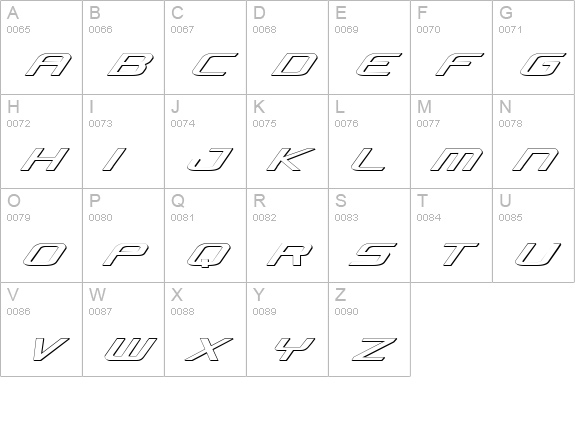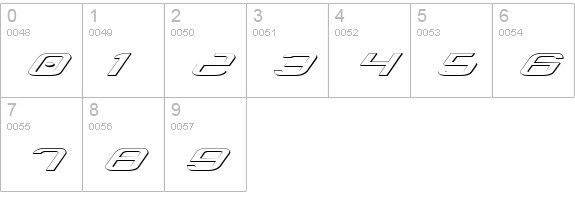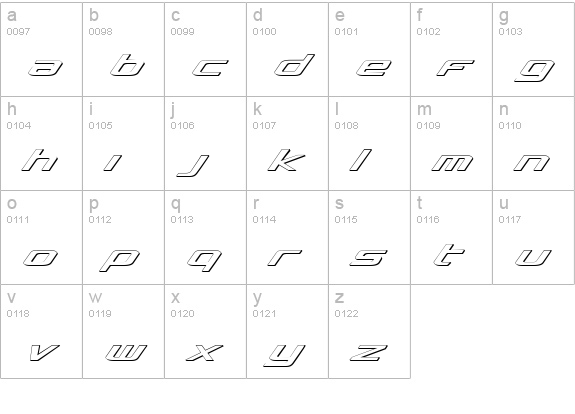
Concielian 3D font is a stunning and dynamic typeface that brings a unique three-dimensional effect to your designs. With its bold and modern appearance, this font is sure to make a statement and capture attention. The intricate details of each letter create a sense of depth and dimension, making Concielian 3D font a versatile choice for a wide range of projects. This font is not only visually striking but also highly legible, making it suitable for both display and text purposes. Whether you're creating posters, logos, or social media graphics, Concielian 3D font will add a touch of sophistication and style to your work. The best part? Concielian 3D font is available for free download at FontsMarket.com. Simply head over to the website and start using this fantastic font in your projects today. Don't miss out on the opportunity to enhance your designs with the captivating Concielian 3D font.